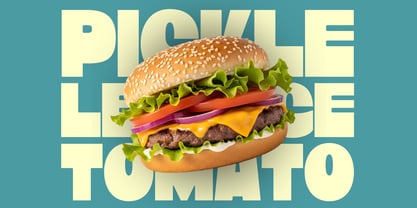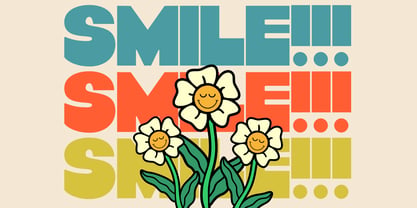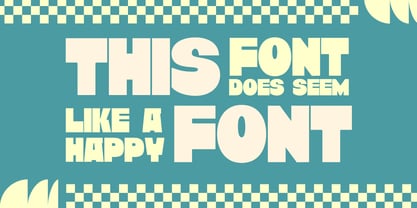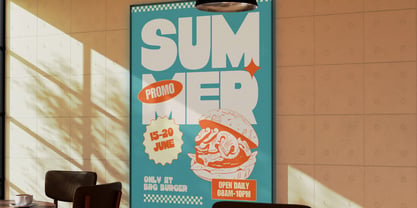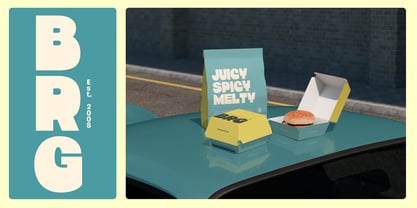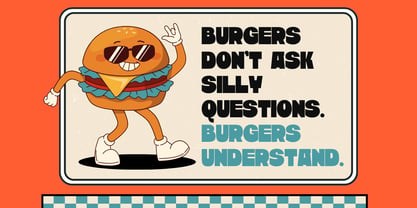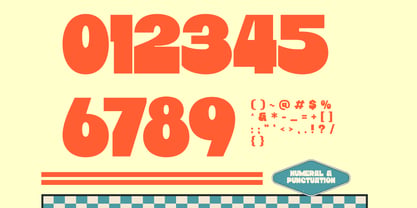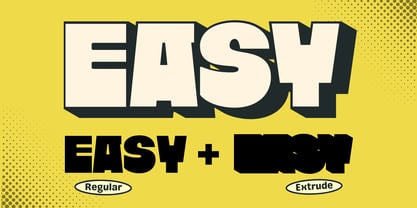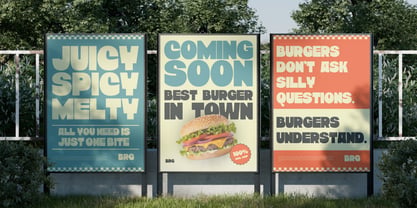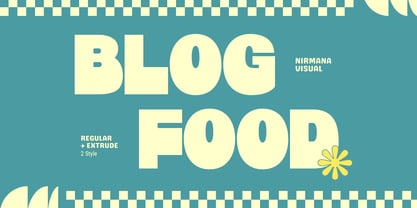
Blog Food
by Nirmana Visual
The Blog Food Font Family was designed by Sigit Dwipa and published by Nirmana Visual. Blog Food contains 2 styles and family package options. More about this family
Blog Food is a deliciously designed food font perfect for restaurant logos, culinary branding, and food product packaging. With its bold and friendly letterforms, it captures the warmth and creativity of modern dining experiences. Available in Regular and Extrude styles, Blog Food adds depth and flavor to your typography, making every design look tasty, inviting, and full of character — ideal for cafes, bakeries, and food-themed brands.
Designers: Sigit Dwipa
Foundry: Nirmana Visual